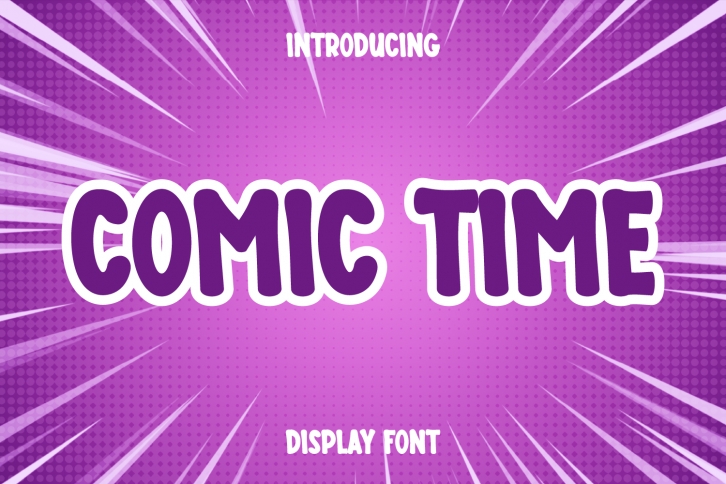
Comic Time is a friendly display font. It embodies playfulness and authenticity and is the perfect choice for any children activity or elementary school design.